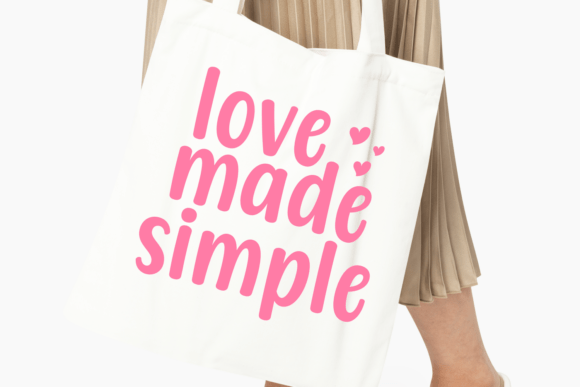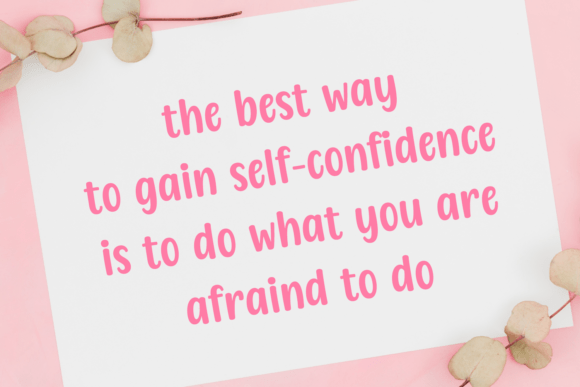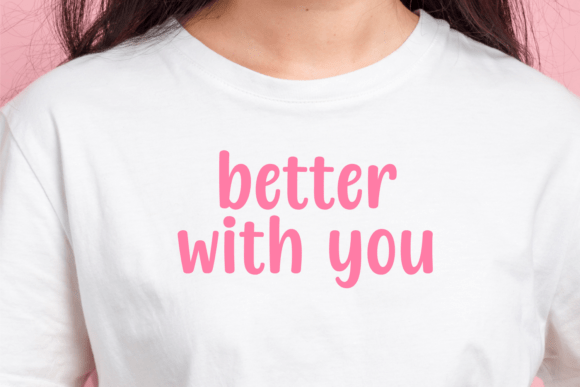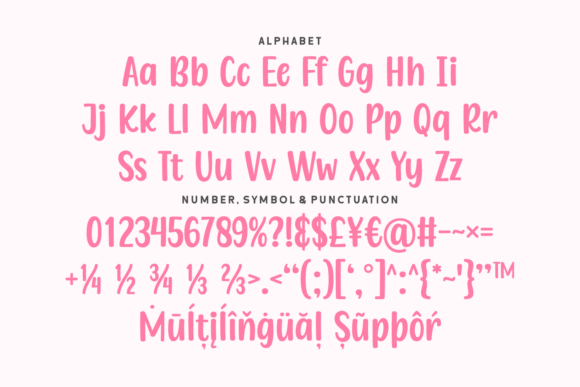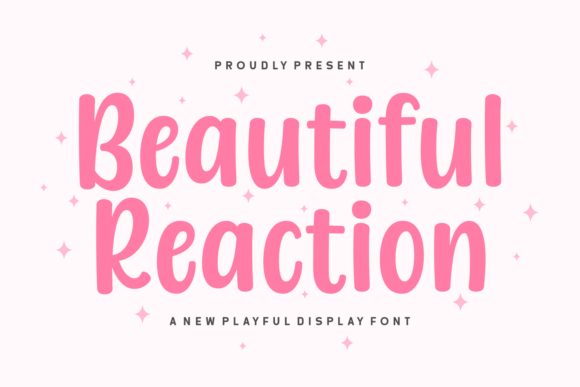
Discover the Enchanting Charm of Beautiful Reaction Font
Immerse yourself in the captivating world of rustic simplicity, gently intertwined with tender emotions, with the Beautiful Reaction font. This exquisite typeface draws inspiration from the relaxed rhythm of handwriting, echoing the heartwarming allure of rural decor, underscored by a delicate whisper of romance. Meticulously handcrafted, Beautiful Reaction harmonizes organic flow with crisp, articulated lines, achieving the perfect equilibrium of personality and readability.
A Font that Speaks to the Heart
Beautiful Reaction is more than just a font – it’s an experience. It infuses a warm, ‘handedly crafted’ charm into your Valentine’s messages, heartfelt gift tags, and snug home accessories, transforming your messaging into visual delight with its neat and legible characters. Whether you’re a designer, crafter, or simply someone who appreciates the beauty of handwritten typography, Beautiful Reaction is sure to captivate your heart and inspire your creativity.
Perfect for Rustic and Vintage Projects
Beautiful Reaction is impeccably tailored for countryside branding, rustic spice labels, farmstead signposts, and pastoral-themed designs. Its unique blend of rustic charm and elegance makes it an ideal choice for designers and crafters looking to add a touch of warmth and personality to their projects. From wedding invitations and greeting cards to home decor and packaging, Beautiful Reaction is the perfect font to evoke a sense of nostalgia and romance.
Elevate Your Digital Planning Tools
But Beautiful Reaction is not just limited to print design. It also invigorates digital planning tools, daily agendas, behavioural journals, and private diaries with a marriage of organization and visual charm. Add a touch of rustic elegance to your digital planning and make your daily tasks more delightful with this enchanting font.
Key Features of Beautiful Reaction Font
- Handcrafted with love: Each letter has been meticulously crafted to achieve a perfect balance of personality and readability.
- Organic flow: Beautiful Reaction combines organic flow with crisp, articulated lines, giving it a unique and charming appearance.
- Neat and legible: The font’s neat and legible characters make it perfect for a variety of design applications, from signage to digital media.
- Rustic charm: Beautiful Reaction’s rustic simplicity and tender emotions evoke a sense of nostalgia and romance.
Tips for Using Beautiful Reaction Font
- Pair with complementary fonts: Pair Beautiful Reaction with clean, modern fonts to create a striking contrast and add visual interest to your design.
- Experiment with colors: Try pairing Beautiful Reaction with earthy tones, pastels, or rich jewel tones to add depth and warmth to your design.
- Add texture and patterns: Add texture and patterns to your design to give it a more rustic, handmade feel.
In conclusion, Beautiful Reaction font is a true gem that will add a touch of rustic charm and elegance to your design projects. With its unique blend of organic flow and crisp lines, this font is perfect for designers and crafters looking to evoke a sense of nostalgia and romance. Whether you’re working on a countryside branding project, a Valentine’s message, or a digital planning tool, Beautiful Reaction is sure to captivate your heart and inspire your creativity.